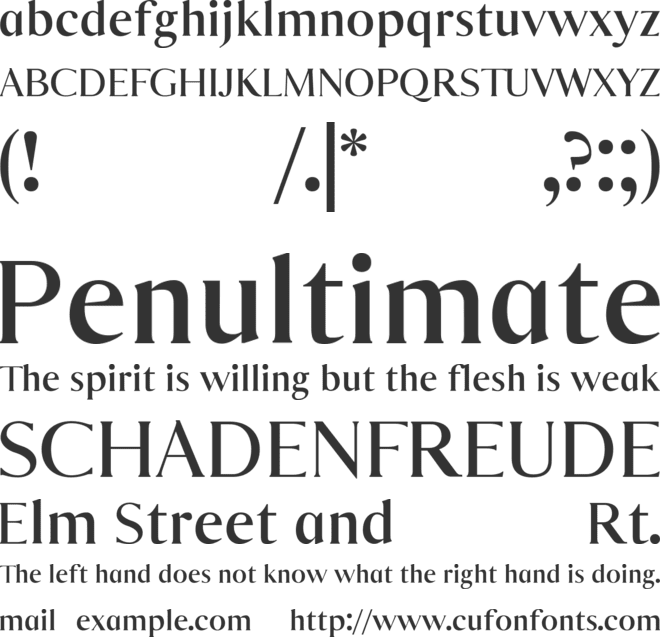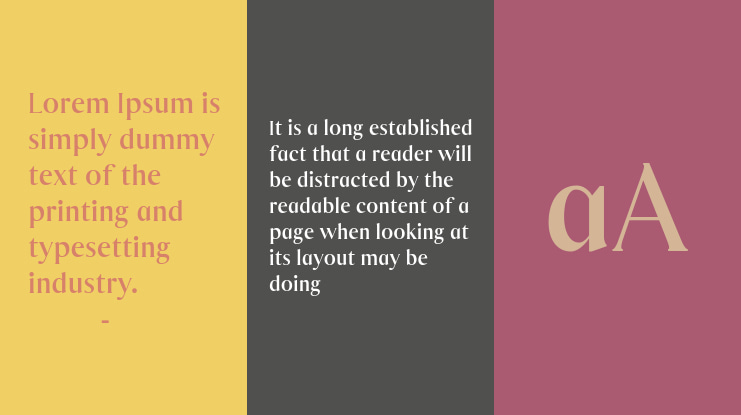
EMILY Font Family
🎨 Font Name: Emily by Minimalist Art Studio
🎨 Font Description: Emily is a minimalist serif with graceful curves and modern poise, perfect for branding, fashion, and editorial storytelling.
βœ” Complete Latin set + multilingual diacritics
βœ” Alternates, stylistic sets & ligatures
βœ” Numbers, small caps, and extended punctuation
βœ” Bonus italics and family styles